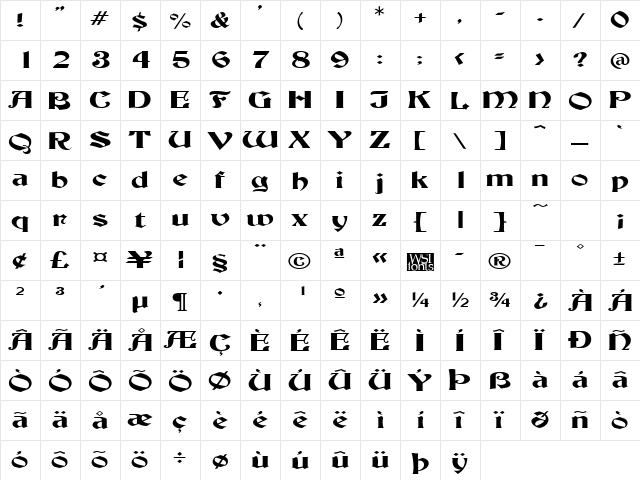
BuckinghamWide Regular
Design Context for BuckinghamWide Typeface
BuckinghamWide is a composed and adaptable typeface that performs quietly and consistently across a wide range of design contexts.